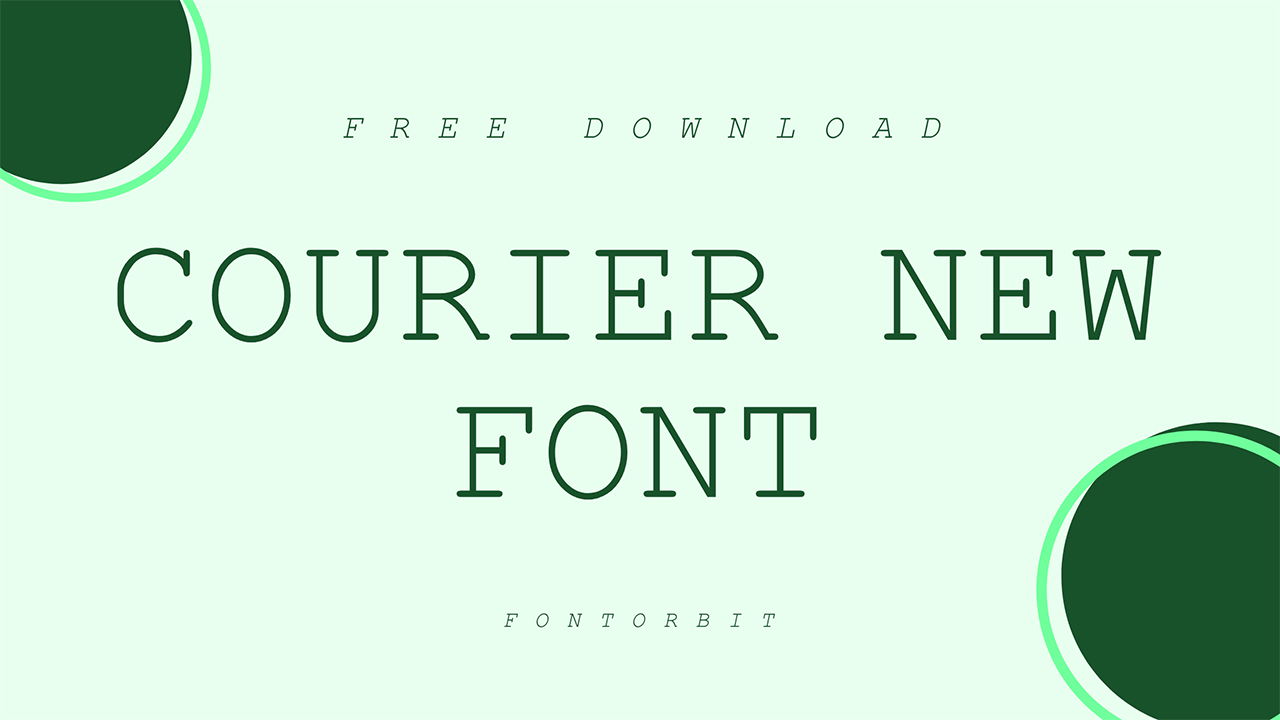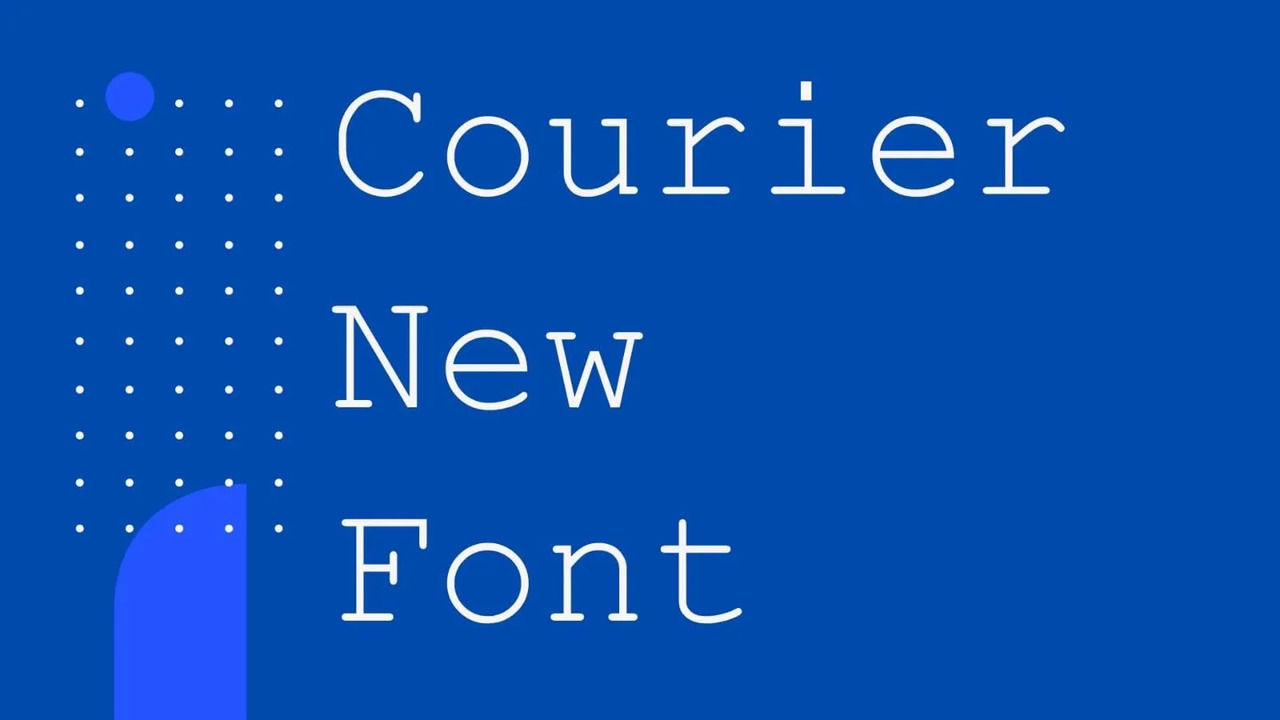
Courier New Font is a classic monospaced typeface originally designed as a typewriter face by Howard Kettler for IBM in the mid-1950s. Adrian Frutiger later redrew Courier for the IBM Selectric series of electric typewriters.
Known for its fixed pitch and slab serif design, Courier New was adapted for digital use and has become a standard font for various applications, including screenplays and technical documentation
Category Of The Courier New Font
Courier New maintains a monospaced, slab serif design, making it suitable for tasks requiring consistent character spacing and alignment. Font family Courier New: This typeface includes several styles, such as:
- Courier New Regular
- Courier New Bold
- Courier New Italic
- Courier New Bold Italicf
Notable Uses Of This Font
Courier New Font is ideal for various applications that benefit from its fixed-width design and classic look. Due to its monospaced design, it is a standard in screenplay formatting. It is particularly useful for displaying tabular data and codes with uniform character spacing. Commonly used for drafts and documents needing consistent alignment. This font is preferred in coding environments for its alignment and readability.
- Screenplays
- Technical Documentation
- Word Processing
- Programming
Courier New Font Found In Use
Courier New is popular across numerous platforms and applications. It is a standard choice in word processors and is prevalent in technical writing and screenplays. It was also the U.S. State Department’s standard typeface until 2004.
Pairing Courier New with fonts like Oswald or Futura PT adds a modern edge to its classic typewriter style, while Montserrat and Helvetica Neue bring sleek, contemporary contrast. For similar styles or alternative monospaced fonts, consider:
Courier New Font provides a timeless monospaced design with a typewriter feel, making it ideal for technical documents, screenplays, and programming. Combining it with Georgia or Times New Roman provides a classic feel, and Tandelle adds a distinctive, stylish touch, creating balanced and engaging typography. Its widespread use and availability make it a reliable choice for various applications.
2.What Are The Technical Specifications Of Courier New Font?
Courier New is a monospaced slab serif typeface with a fixed width, designed for consistent character alignment. It includes Regular, Bold, Italic, and Bold Italic styles.
4.What Is The Leading Of Courier New Font?
Leading for Courier New is typically set at 1.2 times the font size. You can adjust it based on the specific design requirements of the document or application.
5.What Is The Weight And Width Of Courier New Font?
Courier New has a regular weight of 400 and a fixed width for each character, making it a monospaced typeface.
6.What Is The Design Inspiration Behind Courier New Font?
Typically inspired by the typewriter fonts used in IBM’s typewriters, aiming to replicate the typewriter’s consistent character spacing and classic monospaced appearance.
7.What Are The Disadvantages Of Using Courier New Font?
Courier New’s fixed-width design can appear outdated and less readable on screens, especially in italics, and lacks the versatility of proportional fonts.